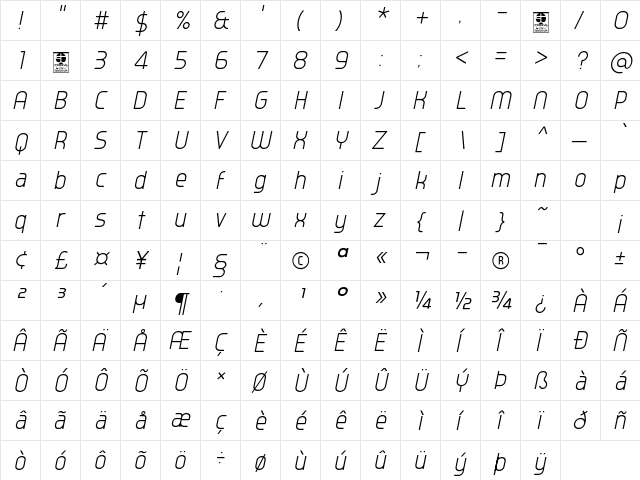
Typo Oval Light Demo Italic
Design Context for Typo Oval Light Demo Typeface
Typo Oval Light Demo is a composed and adaptable typeface that performs quietly and consistently across a wide range of design contexts. The slanted form adds forward momentum and visual energy. The delicate stroke weight brings airiness and refinement to layouts.
Pro Tip: Try Typo Oval Light Demo for annotation and caption copy alongside an upright companion — the contrast in angle creates a dynamic but ordered typographic system.